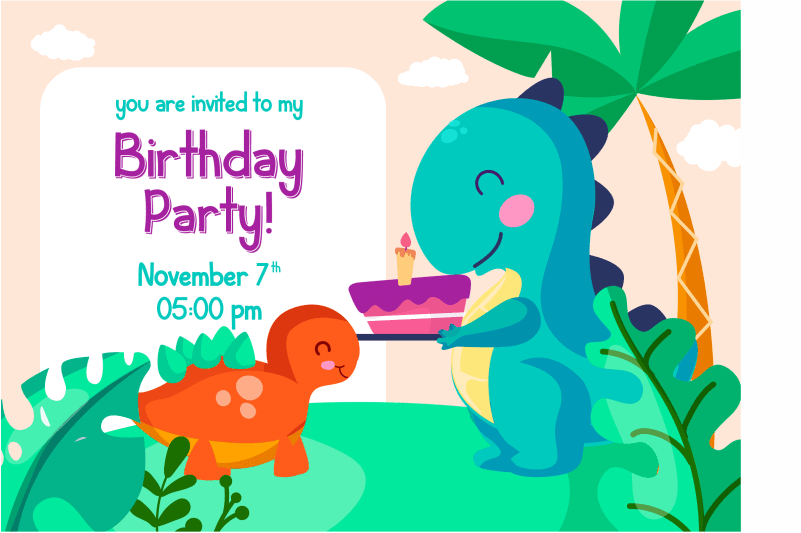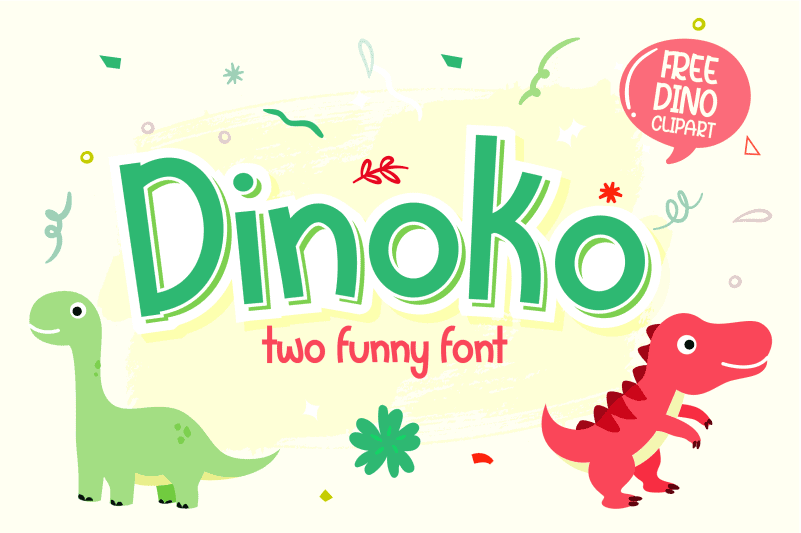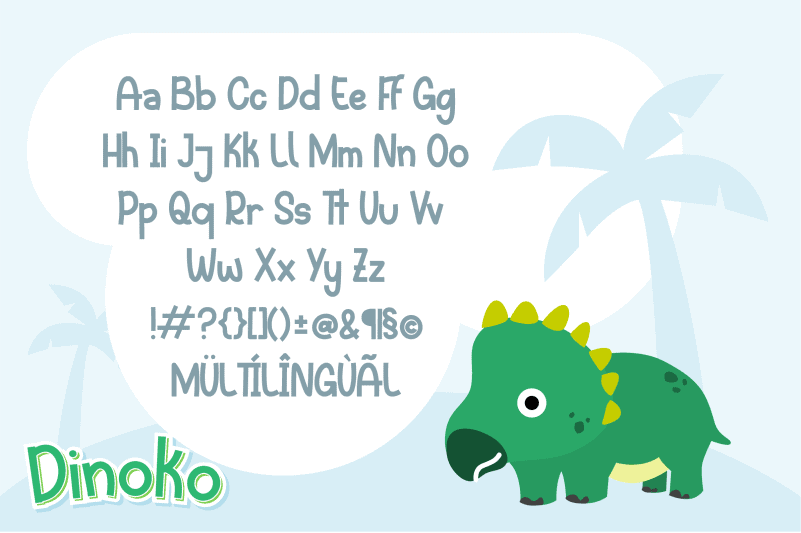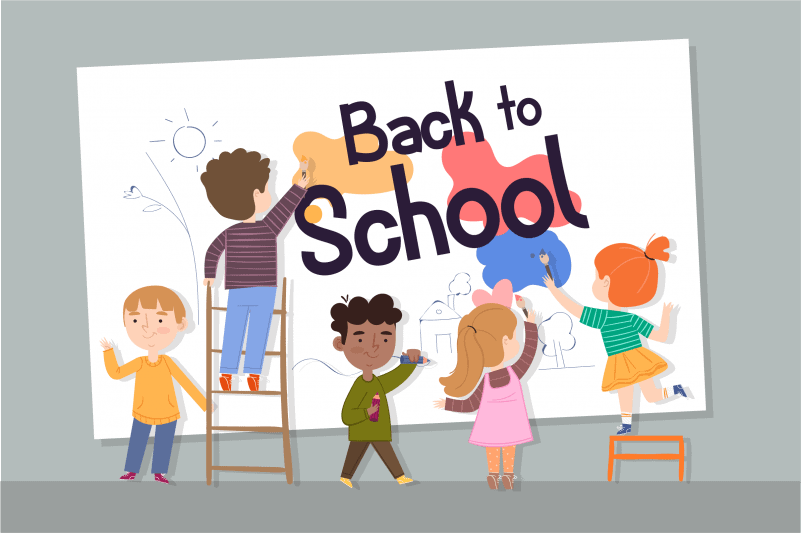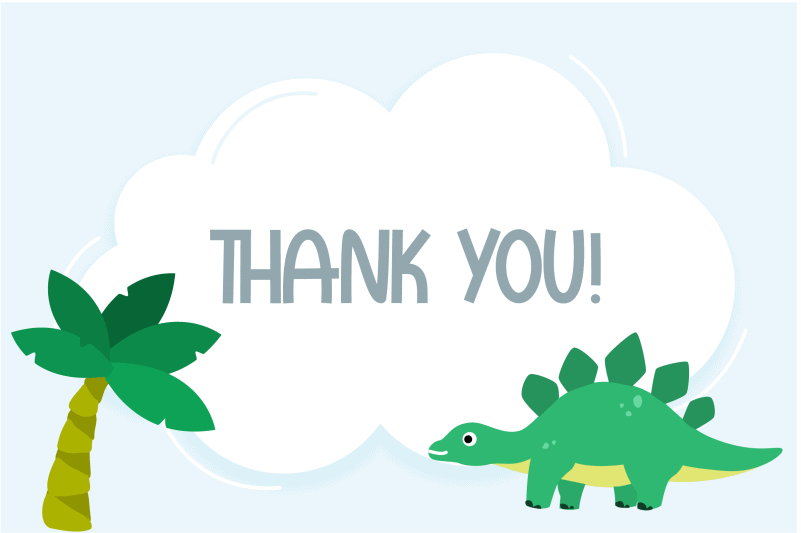
Dinoko Display Font
Dinoko Display Font is a cute and quirky display font. It will add an incredibly joyful touch to your designs. Add this beautiful display font to each of your creative ideas and notice how it makes them stand out!